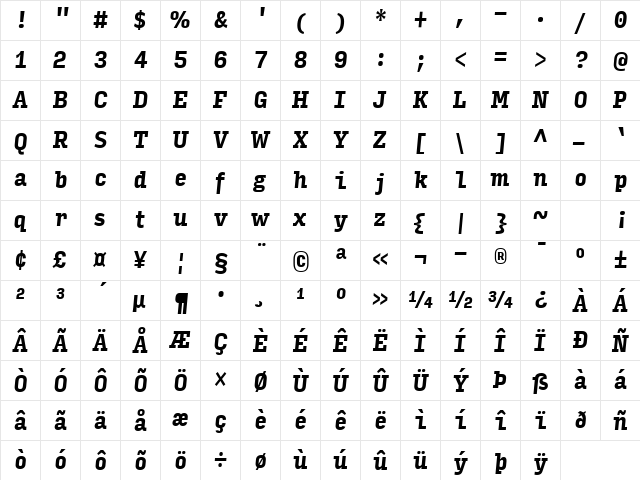
Input Serif Compressed Bold Italic
Foundry: David Jonathan Ross and The Font Bureau
Designer: David Jonathan Ross
Design Context for Input Serif Compressed
Input Serif Compressed carries the refined structure of traditional serif typography, with bracketed terminals and considered proportions that communicate credibility and craft. The slanted form adds forward momentum and visual energy. Its bold stroke weight gives it real presence on the page.
Pro Tip: Use Input Serif Compressed for editorial body copy and considered headline work. Pair with a neutral sans for UI elements or captions to create a classic hierarchy.
Who designed the Input Serif Compressed Bold Italic font?